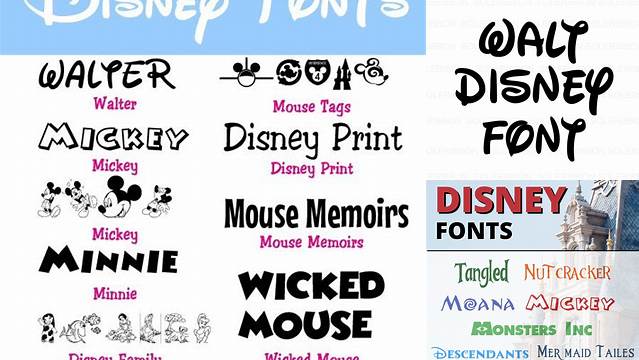
Hey guys! Are you looking to add a touch of Disney magic to your projects? Well, you're in the right place! The Disney font is iconic and instantly recognizable, making it perfect for invitations, posters, and all sorts of creative endeavors. And guess what? You can find a free download of a Disney-esque font on DaFont. Let's dive into everything you need to know about getting that Disney vibe for your designs!
1. Understanding the Allure of the Disney Font
The Disney font holds a special place in the hearts of many, evoking feelings of nostalgia, joy, and wonder. Its whimsical curves and playful design make it instantly recognizable and associated with the magic of Disney's storytelling. When you incorporate a Disney-like font into your projects, you're not just adding text; you're adding a touch of that enchanting world. This is why so many designers and creatives seek out this specific font style for a wide range of applications, from birthday invitations to fan-made posters. Understanding its appeal is the first step in effectively using it in your own work. Think about the emotions you want to evoke and how the font can contribute to that overall feeling. Is it pure fun? A touch of fairytale elegance? Knowing your goal will guide you in selecting the right variation of the Disney-inspired font. Remember, the font is more than just letters; it's a gateway to a world of imagination.
3. Finding a Disney-Inspired Font on DaFont
Okay, let's get down to the nitty-gritty of finding that perfect Disney font on DaFont. First, head over to the DaFont website. Once there, use the search bar to look for terms like "Disney font," "Waltograph" (a popular Disney-inspired font), or "Mickey font." Browse through the search results, and you'll likely find several fonts that capture the essence of the Disney style. When you find a font that looks promising, click on it to view a preview. This will allow you to see all the characters in the font, including uppercase and lowercase letters, numbers, and symbols. You can also type in your own text to see how it looks in the font. Pay close attention to the details, such as the curves, serifs, and overall style of the letters. Does it capture the whimsical and magical feel you're going for? Don't be afraid to try out a few different options before making your final decision. Remember to check the license information to ensure the font is free for your intended use. With a little bit of searching, you'll be sure to find a Disney-inspired font that's perfect for your project!
30. Common Mistakes to Avoid When Using Disney Fonts
While Disney fonts can add a touch of magic to your projects, it's essential to avoid common mistakes to ensure your designs remain professional and legally compliant. One frequent error is using fonts without proper licensing, especially for commercial purposes. Always verify the font's license before using it in logos, merchandise, or advertising. Overusing Disney fonts can also be a pitfall. Employ them sparingly, typically for headings or accents, to avoid overwhelming the design. Neglecting readability is another common mistake. Ensure the chosen font is easy to read, particularly for body text. Additionally, failing to consider font pairing can lead to visual disharmony. Pair Disney fonts with simpler, more neutral fonts to balance the design. Lastly, be mindful of cultural sensitivity and avoid using Disney fonts in contexts that could be disrespectful or inappropriate. By being aware of these common mistakes, you can use Disney fonts effectively and responsibly, enhancing your designs without compromising on quality or legality.